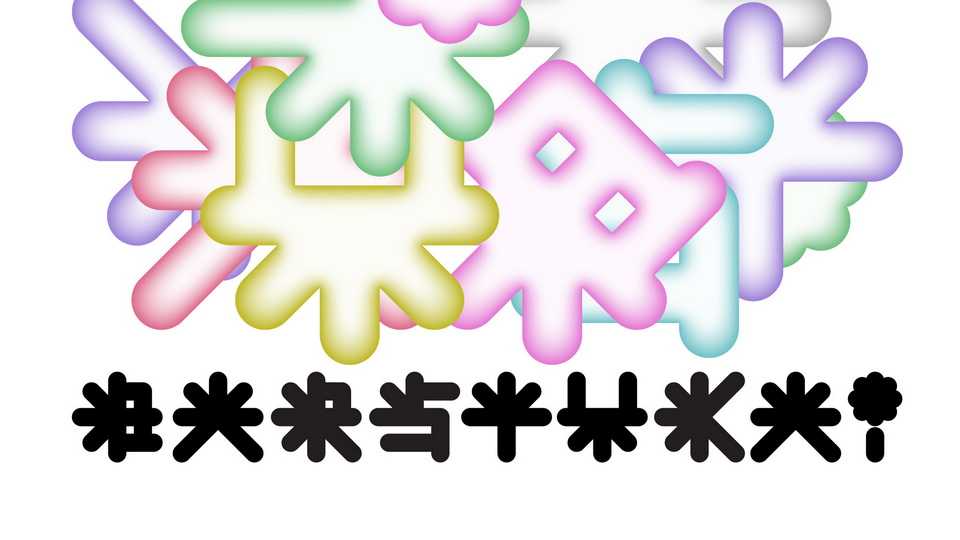
Download Barstukai font, a unique bubbly and fun display typeface inspired by Lithuanian mythology. Barstukai (pronounced bars-tu-kai) are tiny people living in the forests, under the trees.
Designer: Beržulis